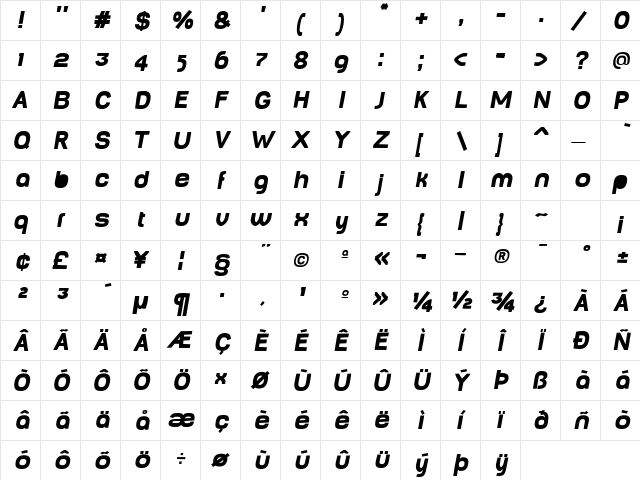
BabyMine FatOblique Font Preview
BabyMine FatOblique
Design Context for BabyMine Typeface
BabyMine takes a measured approach to typography — its balanced proportions and neutral character make it a reliable workhorse for both digital and print work. The dynamic lean of this cut emphasises speed and emphasis in any layout.
Pro Tip: Use BabyMine for emphasis, pull quotes, and subheadings where its slanted energy can add rhythm to the layout.